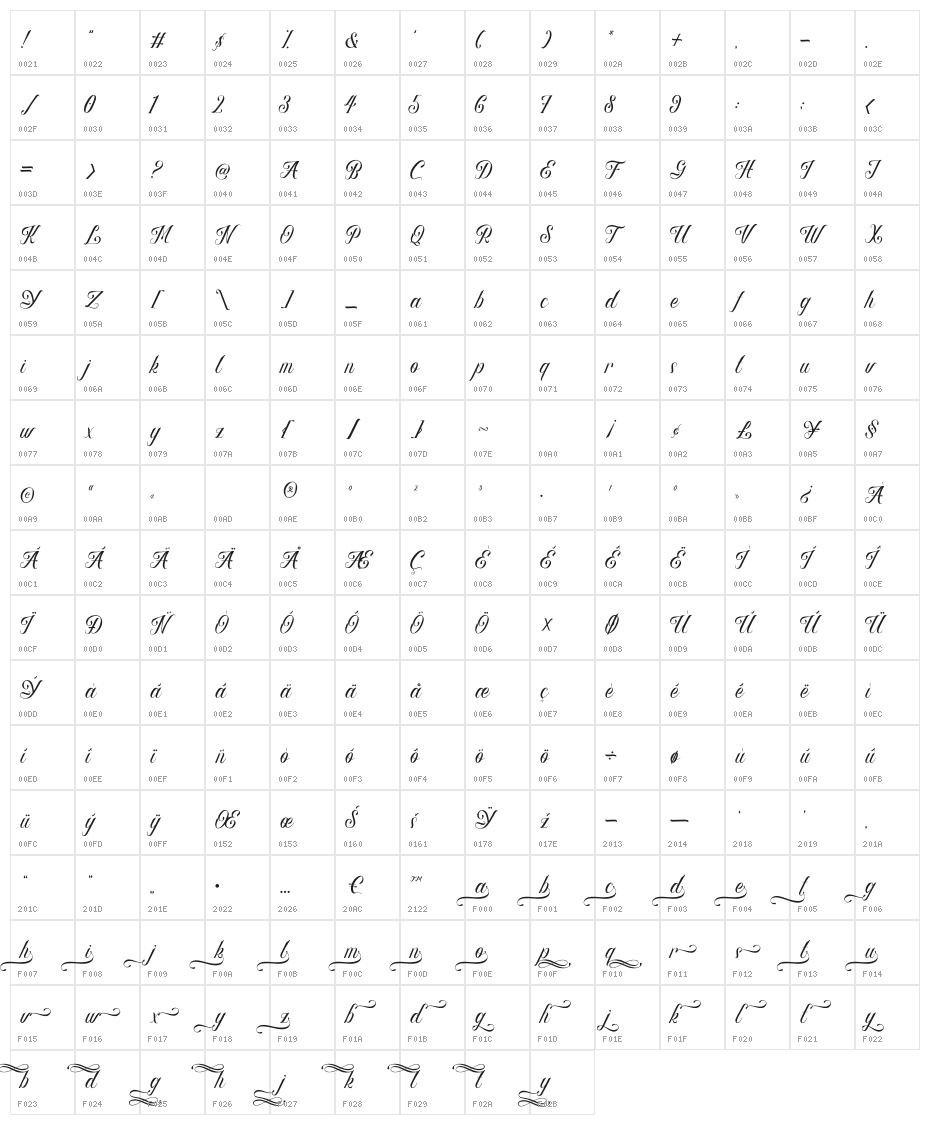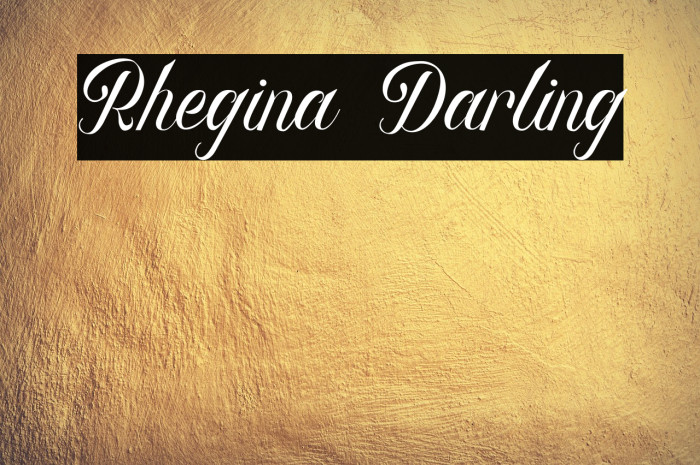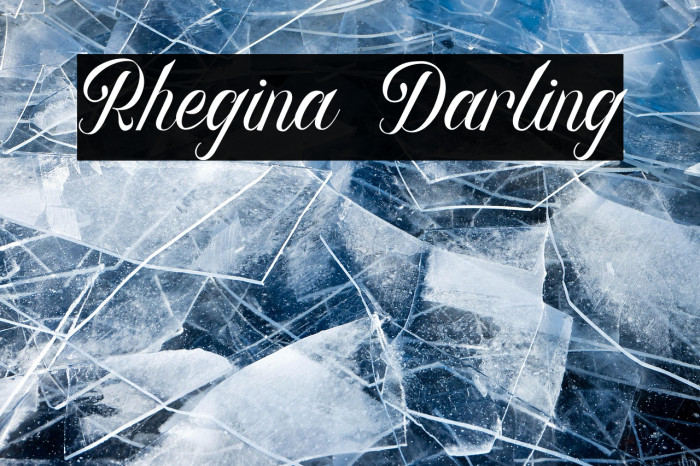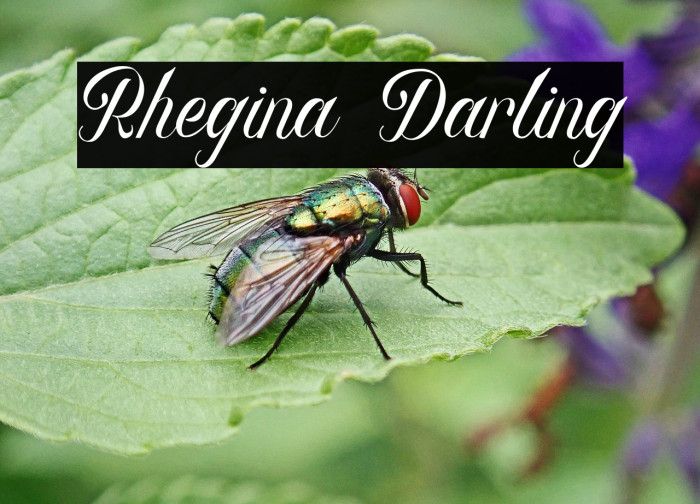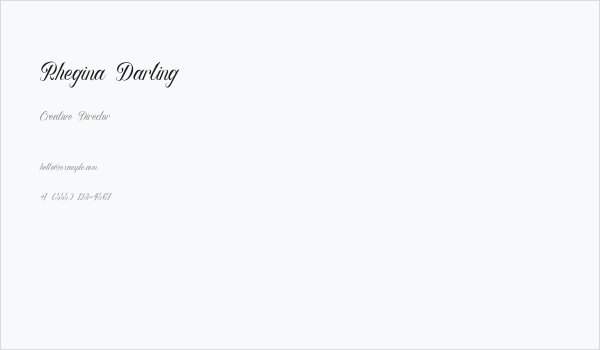
Rhegina Darling Font
Rhegina Darling Description
This elegant script font features flowing, cursive letterforms with intricate swashes and flourishes. The uppercase letters are particularly ornate, with extended loops and curves that give a sense of movement and grace. The lowercase letters maintain a consistent style, with smooth connections and a slightly slanted angle, enhancing readability while retaining a decorative flair. The numerals are designed to match the overall aesthetic, featuring similar curves and embellishments. Special characters are included, each crafted with the same attention to detail, making this font suitable for a variety of creative applications.
| Use Case | Logos, Invitations, Decorative Headlines |
| Proposed Projects | Ideal for wedding invitations, elegant branding, luxury packaging, and decorative headlines. |